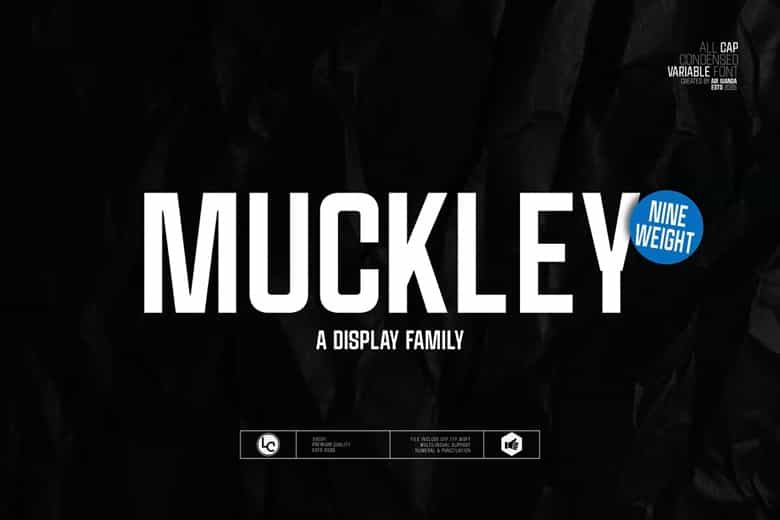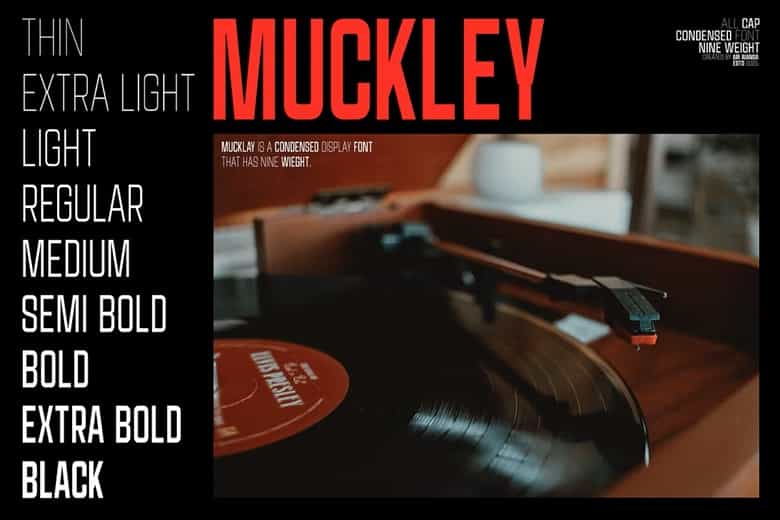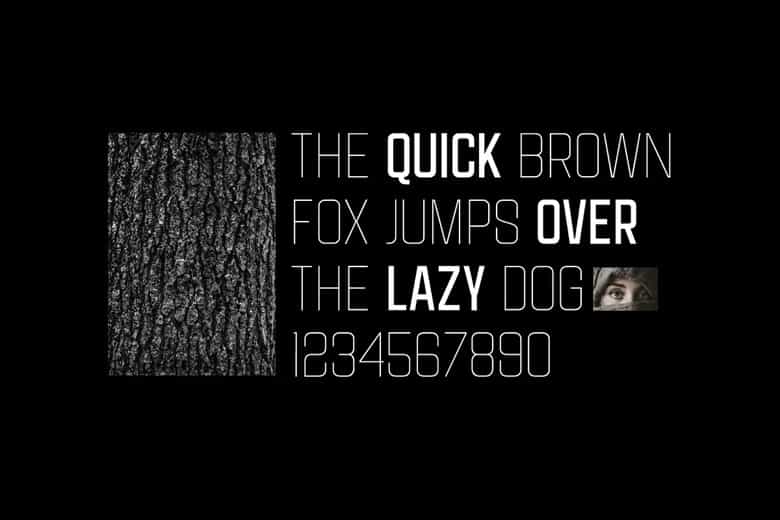
Muckley is an elegant and modern display sans serif font family comes with nine weights and designed quite firmly, it creates a strong impression with a modern touch in the design, inspired by movie titles and it’s a condensed font.